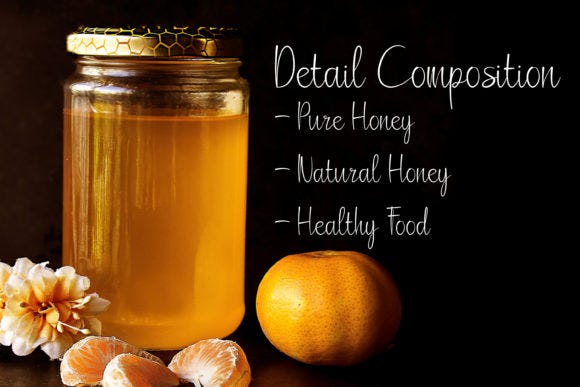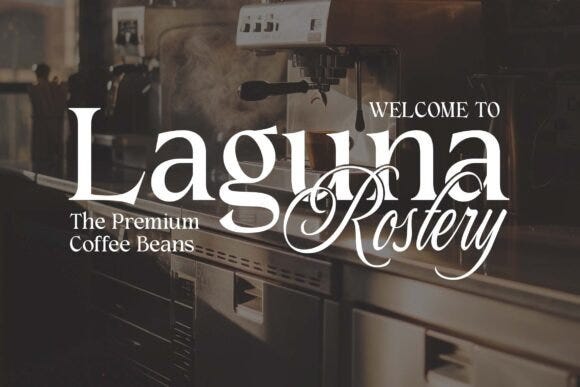
Top 10 Popular Fonts of 2025 for Designers: Elevate Your Projects
Looking for the best fonts for design in 2025? Fonts are the heartbeat of any project, from logos and websites to branding and print materials. Below is a clickable list of the most popular fonts of 2025 to kickstart your creativity. Download them now via this platform and take your designs to the next level!
Top 10 Popular Fonts
Thick Black
Disney
Honey
Thin Hand-lettering Script
Malibu Sunday
Kayla Outline
Folkies Vantage Font
Minimalist Font
Tallica Font
Designer Font
Why Choose These Fonts?
How to Use These Fonts?
These fonts for design are versatile for:
Logos: Create standout brands with The Chic Script or Modern Sans Pro.
Web Design: Minimalist Thin and Geometric Futura give websites a modern edge.
Print Materials: Serif Elegance is perfect for brochures and books.
Crafting: Playful Handwritten and Vintage Monogram shine in personalized projects.
Conclusion